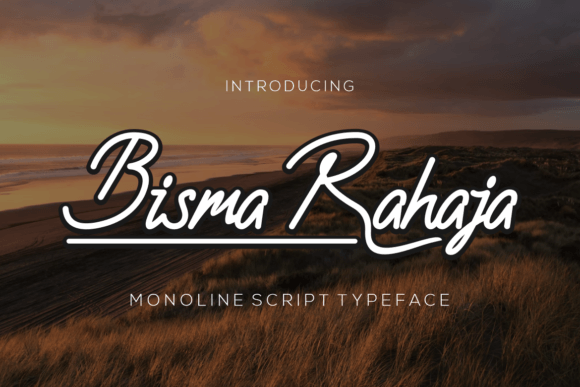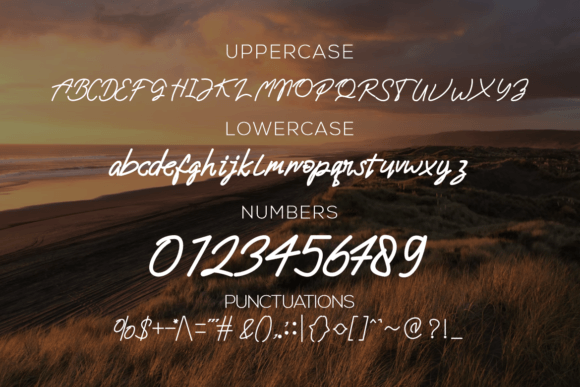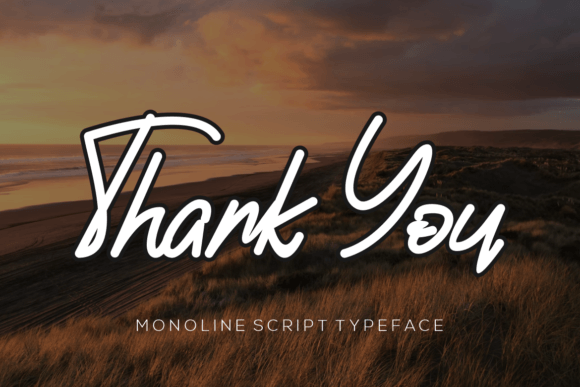
Bismarahaja Font: Elevate Your Designs with Elegance and Sophistication
In the world of typography, a font can make or break a design. For designers and crafters looking for a unique and stylish touch, the Bismarahaja Font is an excellent choice. This handwritten font exudes beauty, class, elegance, and modernity, making it perfect for a wide range of projects.
What is Bismarahaja Font?
BismaRahaja is a distinctive handwritten font that has captured the hearts of designers and crafters alike. Its unique charm and character make it an ideal choice for those seeking to add a touch of sophistication to their work. Whether you’re creating a signature, logo, or typography quote, this font is sure to impress.
Key Features of Bismarahaja Font
- Unique Handwritten Style: Bismarahaja Font boasts a one-of-a-kind handwritten style that sets it apart from other fonts.
- Elegant and Modern: This font seamlessly blends elegance and modernity, making it perfect for a wide range of design projects.
- Classy and Sophisticated: The Bismarahaja Font exudes class and sophistication, adding a touch of luxury to any design.
- Versatile: This font is suitable for various projects, including signatures, stationery, logos, wedding designs, typography quotes, magazine or book covers, website headers, clothing, branding, packaging design, and more.
Uses of Bismarahaja Font
The Bismarahaja Font is an incredibly versatile font that can be used in a multitude of design projects. Here are some ideas to get you started:
- Signature Design: Add a touch of elegance to your signature with the Bismarahaja Font.
- Stationery and Letterhead: Elevate your stationery and letterhead with this beautiful font.
- Logo Design: Create a stunning logo that showcases your brand’s personality with the Bismarahaja Font.
- Wedding Design: Make your wedding stationery, invitations, and decorations truly special with this gorgeous font.
- Typography Quotes: Create inspiring and stylish typography quotes that showcase your favorite phrases.
- Magazine or Book Cover: Give your publication a professional and sophisticated look with the Bismarahaja Font.
- Website Header: Create a stunning website header that captures your brand’s essence.
- Clothing and Apparel: Design stylish and elegant clothing and apparel with this versatile font.
- Branding and Packaging: Elevate your brand’s packaging and branding with the Bismarahaja Font.
Why Choose Bismarahaja Font?
With so many fonts available, why choose Bismarahaja Font? Here are a few compelling reasons:
- Unique and Exclusive: This font is unlike any other, offering a distinctive touch to your designs.
- High-Quality: The Bismarahaja Font is crafted with precision and attention to detail, ensuring a high-quality finish.
- Easy to Read: Despite its elegant and cursive nature, this font is easy to read and understand.
- Customizable: You can customize the Bismarahaja Font to fit your design needs, making it even more versatile.